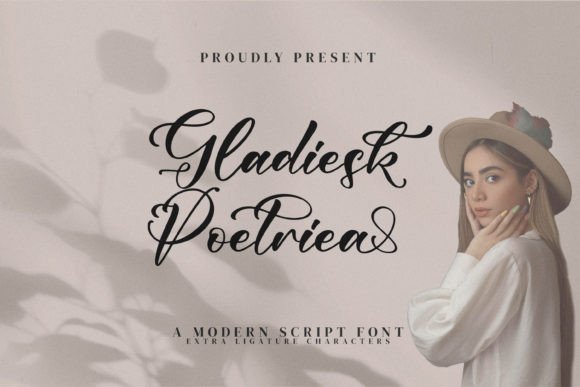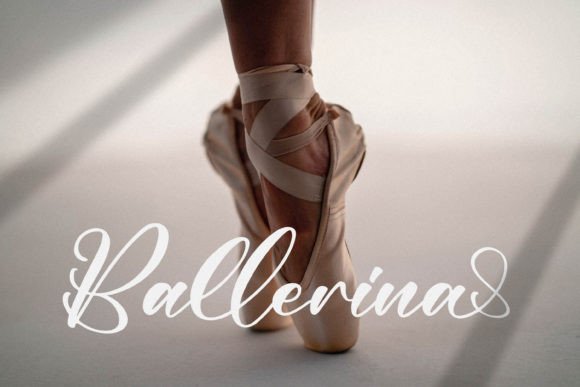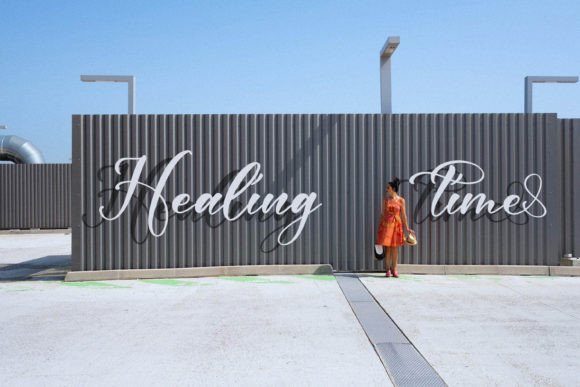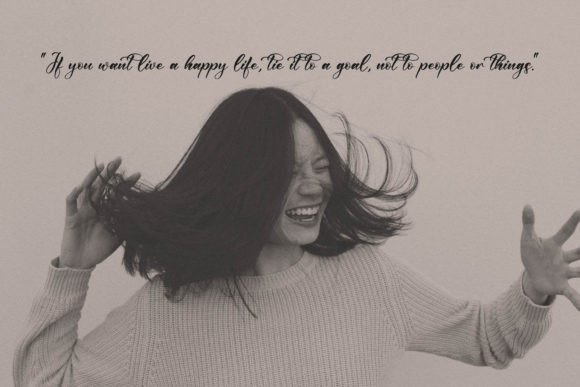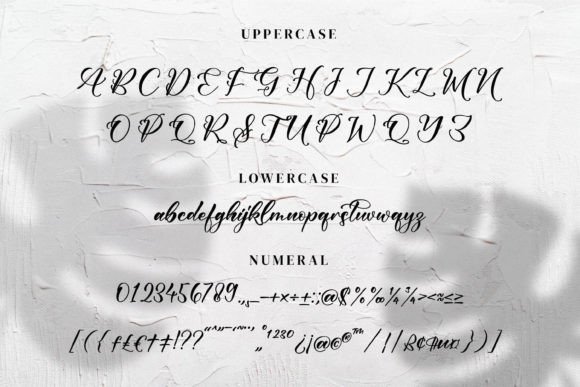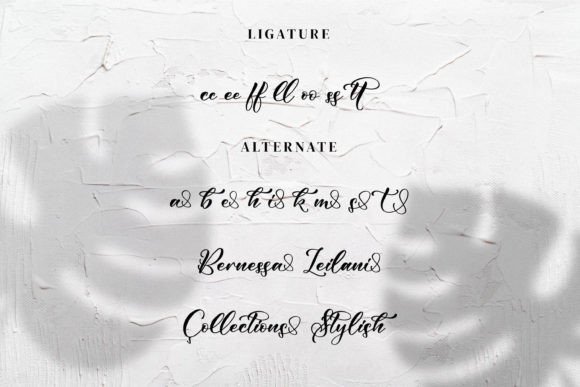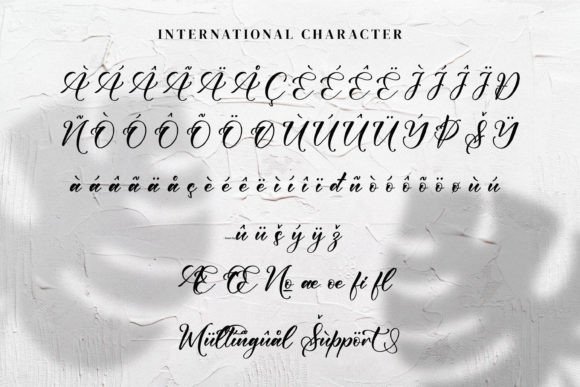
Unleash the Romance with Gladiesk Poetriea Font
Have you ever found yourself lost in a world of words, where every stroke of the pen brings a new story to life? For many creatives, this moment of pure inspiration is what drives us to bring our visions to reality. And for designers, it’s this spark that sets their imagination ablaze.
Enter Gladiesk Poetriea Font, a calligraphy typeface that will transport your designs to a realm of luxury and elegance. This charming font features characters that dance along the baseline, adding a touch of whimsy and romance to any project. Whether you’re designing a wedding invitation, a perfume label, or a romantic novel cover, Gladiesk Poetriea Font is sure to add that special something that sets your design apart.
Gladiesk Poetriea Font Key Features
- Unique Characteristics: Features a distinctive, elegant script style with flowing connections and subtle flourishes, making it ideal for creative and artistic applications.
- Font Weight: Available in Light, Regular, and Bold weights, allowing for varying levels of emphasis and visual hierarchy in design.
Designer Review: Gladiesk Poetriea Font
Overall, I think Gladiesk Poetriea Font has some unique qualities that make it stand out from other fonts in its category. ✨ The fluid curves and dynamic lines evoke a sense of whimsy and playfulness, making it perfect for creative projects that need a touch of personality. ✨ The font’s versatility also makes it suitable for both digital and print media, from posters and flyers to websites and social media graphics.
However, I do have some concerns about the font’s limitations. ⚠️ One of the main issues is its readability in smaller font sizes. While the font looks great in larger sizes, it can become difficult to decipher in smaller sizes, which may be a problem for projects that require clear, concise text. ⚠️ Additionally, the font’s complexity may not be suitable for all types of projects, as it can be overwhelming if used excessively.
- Unique, whimsical design ✨
- Versatile for digital and print media
- Fluid curves and dynamic lines
Overall, I think Gladiesk Poetriea Font is a great addition to any designer’s toolkit, but it’s essential to use it judiciously and in the right context. With some careful consideration, it can add a touch of magic to your projects.
Gladiesk Poetriea Font is ideal for creative and artistic projects, such as:
Book covers and illustrations
Brand identity and marketing materials
Alternatives to Gladiesk Poetriea Font
Great Vibes is a beautiful, elegant script font suitable for creative projects, wedding invitations, and any design that requires a touch of sophistication. It is more elegant and refined compared to Gladiesk Poetriea Font, which has a more playful feel.
Use Great Vibes Font when you want to convey a sense of luxury and sophistication.
Pacifico is a stylish, cursive font perfect for designs that require a relaxed, beachy vibe. It is more casual and laid-back compared to Gladiesk Poetriea Font, which has a more dramatic feel.
Use Pacifico Font when you want to create a design that exudes a sense of calmness and serenity.